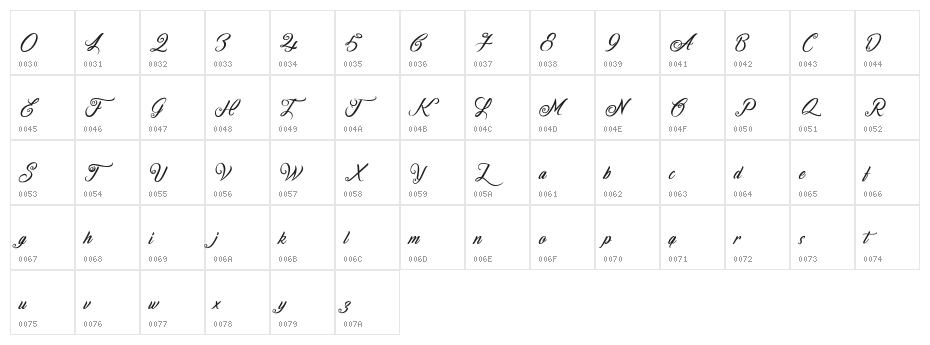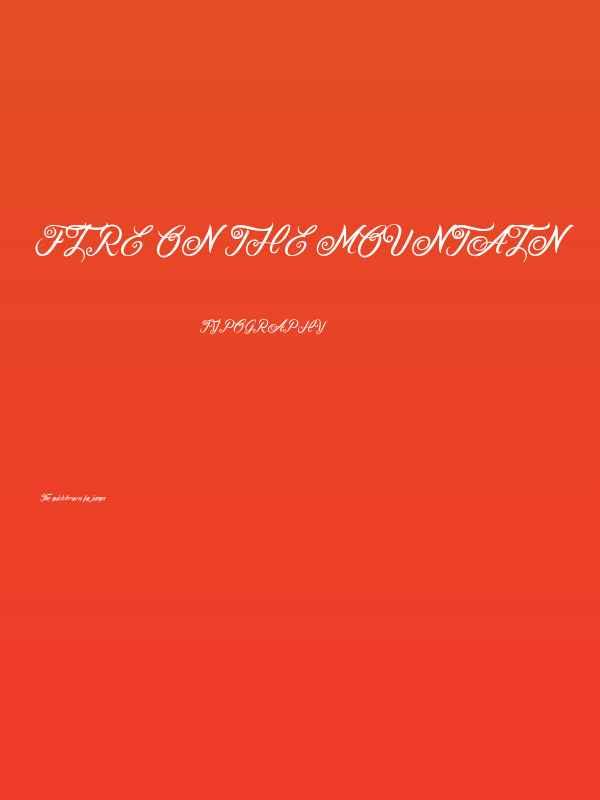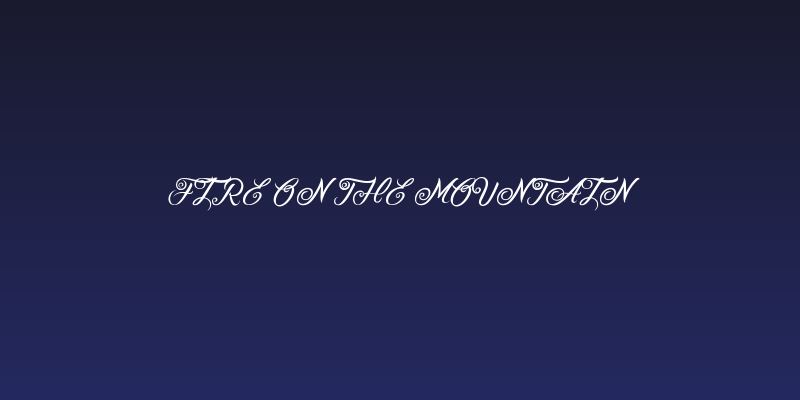
Fire on the Mountain Font
Fire on the Mountain Description
This font exudes elegance and sophistication with its intricate script style. The characters are adorned with delicate swirls and flourishes, giving it a decorative and ornate appearance. The uppercase letters are particularly elaborate, featuring extended strokes and loops that add a touch of grandeur. The lowercase letters maintain a consistent flow, complementing the uppercase with their graceful curves. Numbers and special characters are equally stylized, ensuring a cohesive look across all elements. This font is ideal for projects that require a touch of luxury and refinement.
| Proposed Projects | Wedding invitations, luxury branding, elegant packaging, greeting cards, and decorative signage. |